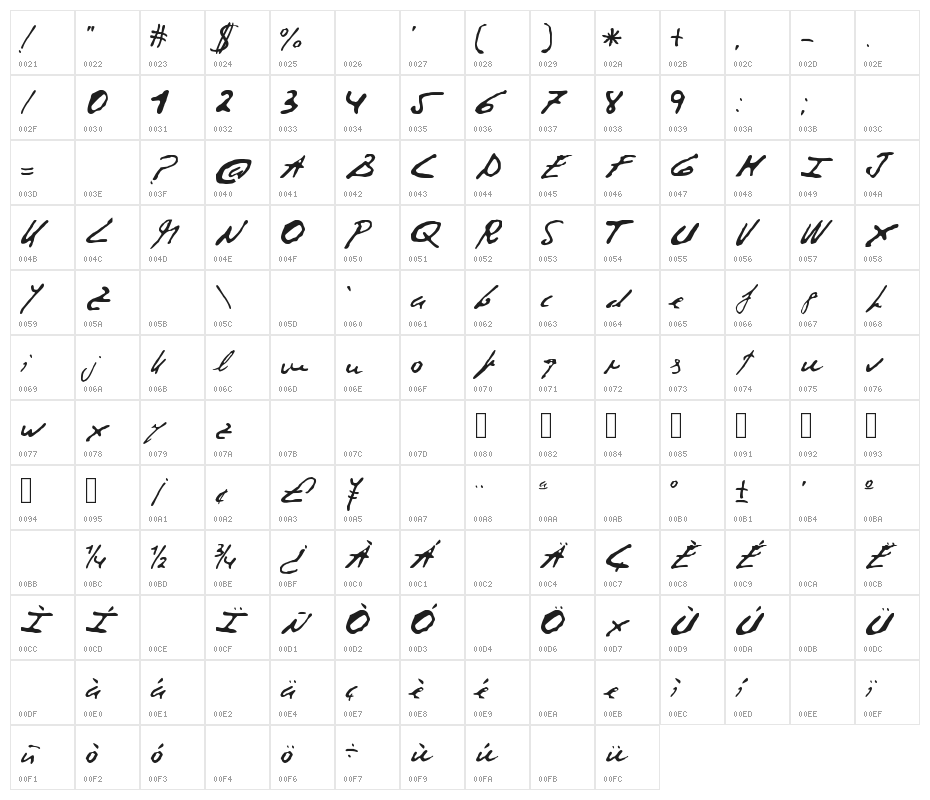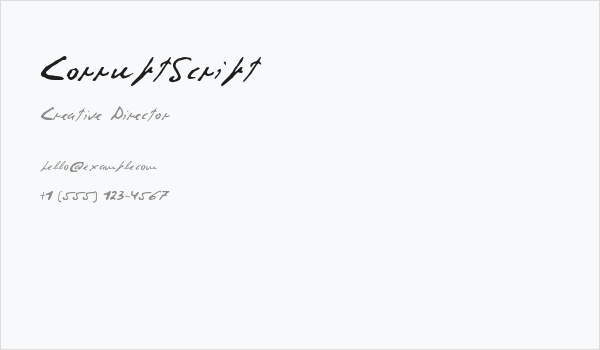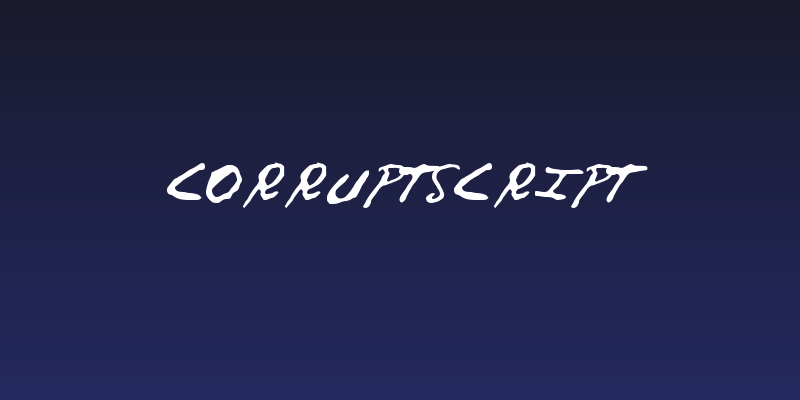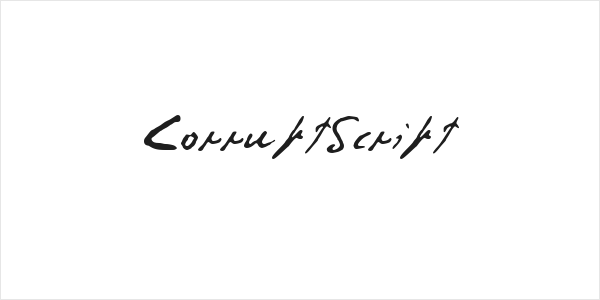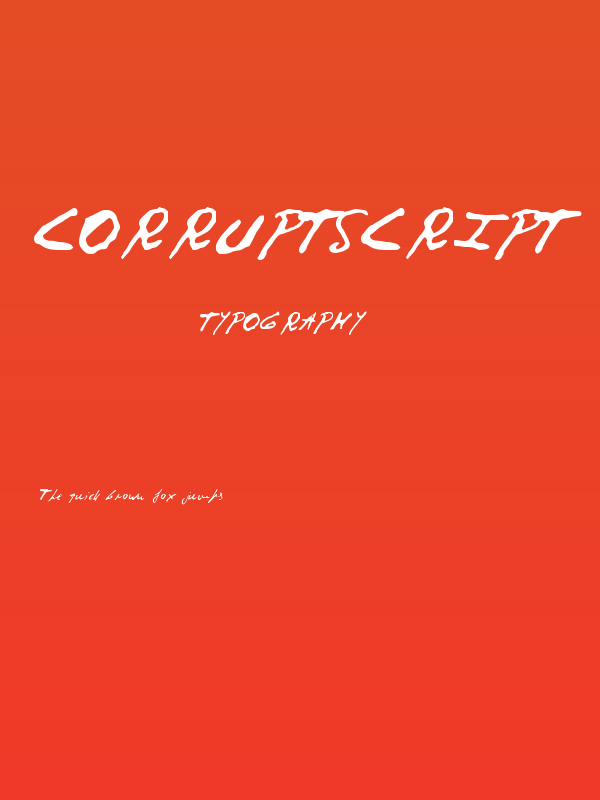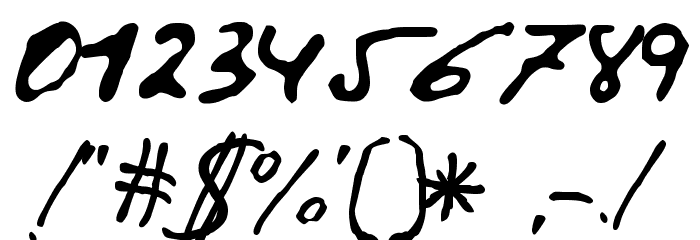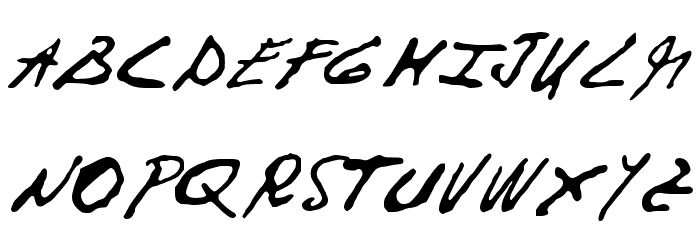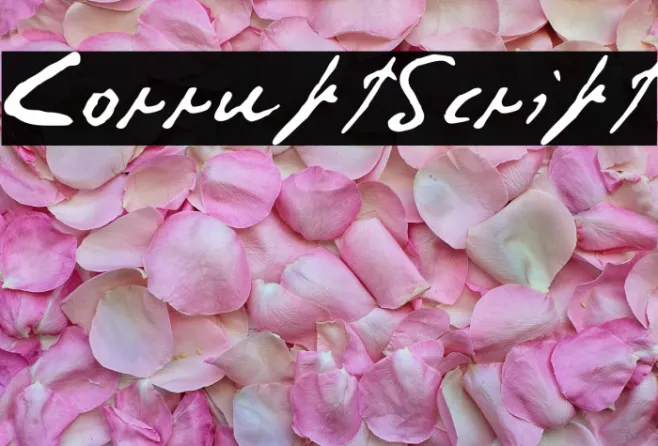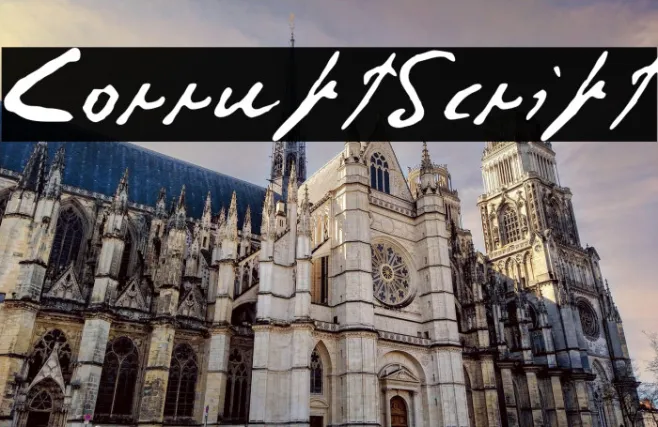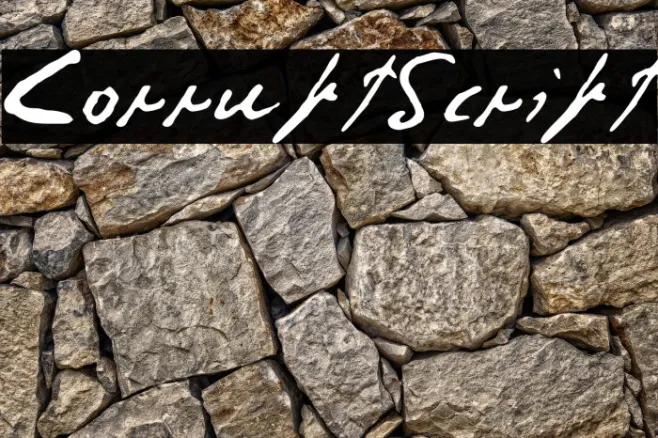
CorruptScript Font
CorruptScript Description
This font exhibits a dynamic and expressive handwritten style, characterized by its fluid and cursive strokes. The letters are connected in a natural flow, mimicking the appearance of quick, personal handwriting. The uppercase and lowercase letters maintain a consistent slant, enhancing the script's informal and casual aesthetic. The numerals and special characters follow the same stylistic approach, ensuring uniformity across the typeface. The overall design is energetic and slightly chaotic, which adds to its charm and authenticity. This font is ideal for projects that require a personal touch or a sense of spontaneity.
| Overall Style | Casual, Expressive |
| Use Case | Logos, Invitations, Personal notes |
| Proposed Projects | Ideal for personal notes, invitations, greeting cards, and creative projects that require a handwritten touch. |